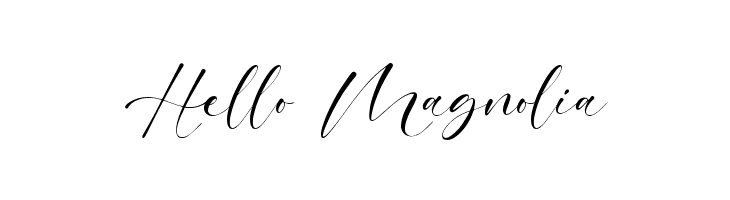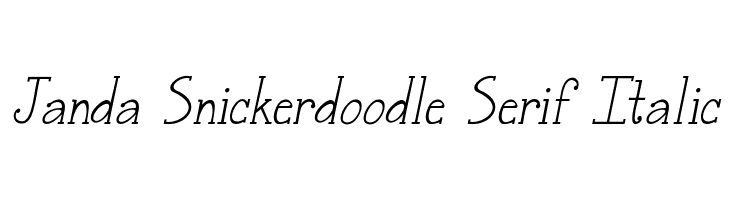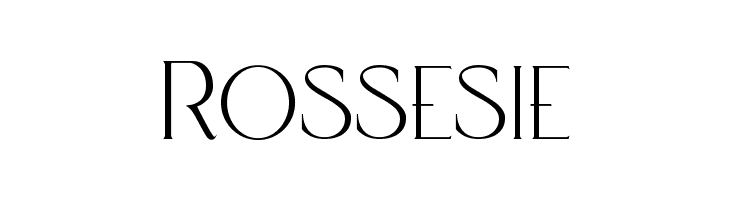
( Fonts by www.kimberlygeswein.com - Kimberly Geswein )
A playful serif font with an italic style and medium contrast.
A bold, geometric font with sharp edges and a condensed, industrial style.
( Jonathan S. Harris - www.tattoowoo.com )
A dynamic and fluid script font with elegant, flowing letterforms and high contrast.
A bold, slanted font with high contrast and angular shapes, ideal for dynamic headlines.
A playful, handwritten font with a whimsical and friendly style.
( Fonts by Darko Bogdanov )
A modern italic font with a gradient line effect, offering a dynamic and stylish appearance.
( Out Of Step Font Company - outofstepfontco.com )
A bold, vintage slab serif font with a strong, nostalgic appeal.
( Renny Murray - www.rennysniche.com )
A bold, bomb-themed decorative font with explosive character designs.